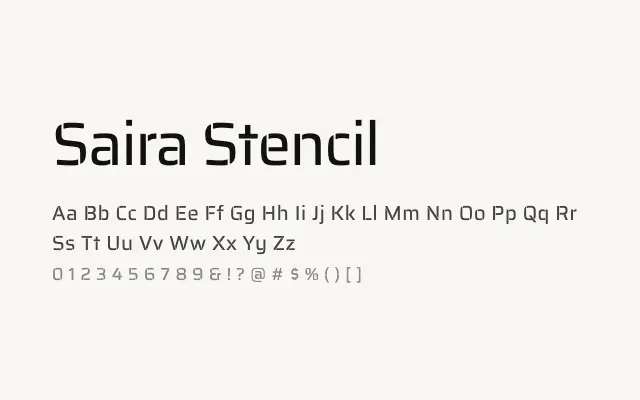
Saira Stencil
A stencil variant of Saira that layers an industrial, utilitarian aesthetic over the family's clean grotesque skeleton.
Saira Stencil inherits the robust structure of the Saira grotesque and overlays it with deliberately placed stencil cuts that reference military and industrial lettering traditions. The full range from Thin to Black means it can operate as a delicate design accent or a heavy, commanding headline. It works well in packaging, branding projects with a rugged or technical edge, and poster contexts.
Saira Stencil applies a stencil-cut treatment to the Saira grotesque structure, introducing characteristic breaks in strokes across the full nine-weight range. The industrial undertone of the base family is amplified by the stencil cuts, giving it a utilitarian, military-adjacent aesthetic.